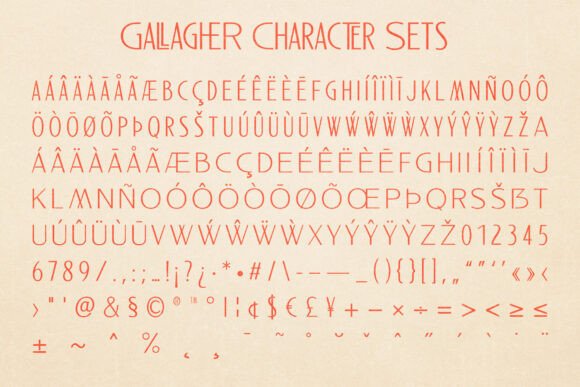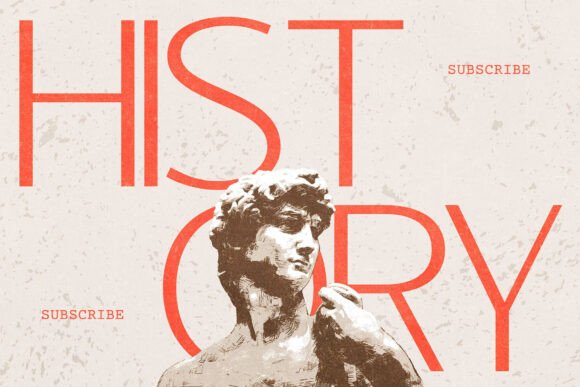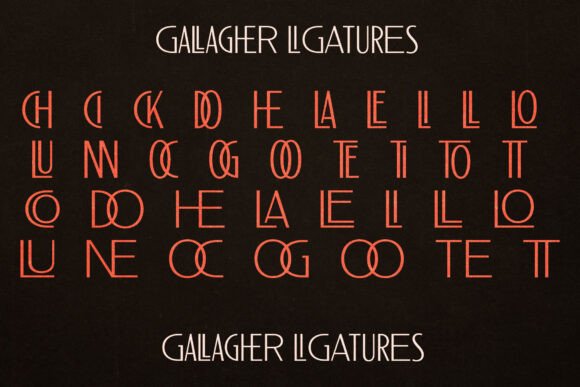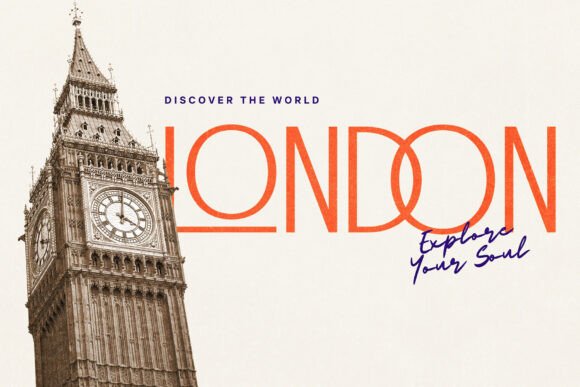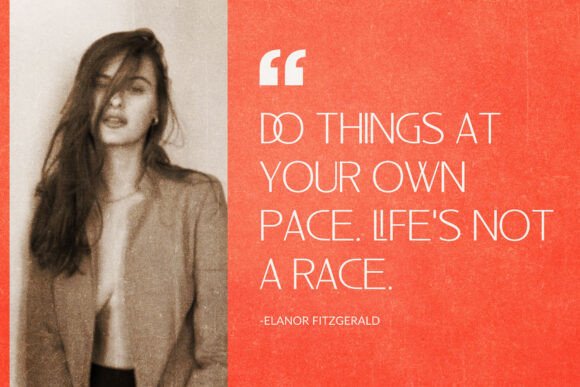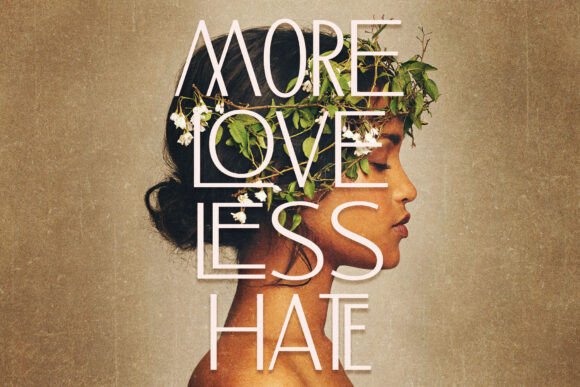
Have you ever stared at a blank canvas, waiting for the perfect font to bring your design to life? For designers, this is a familiar creative moment – the one where the right font can make or break a project. If you’re on the hunt for a modern ligature sans serif font that exudes sophistication and charm, look no further than the Gallagher Font.
This stylish font is designed to add a fashionable touch to any design, whether it’s a beauty layout, elegant crafting project, or branding template. With its delicate curves and classy ligature, the Gallagher Font brings a contemporary feel that’s sure to impress. As a designer, you’ll appreciate the versatility and elegance it offers, making it a valuable addition to your design toolkit.
Gallagher Font Key Features
- Font Size: Gallagher Font is designed to be highly legible at various font sizes, from 10pt to 24pt, making it suitable for both body text and display text.
- Unique Characteristics: Gallagher Font features a unique blend of modern and vintage elements, with a distinctive flair that sets it apart from other sans-serif fonts.
Gallagher Font Review
I recently had the chance to work with the Gallagher Font, and I must say it’s a unique blend of modern and vintage styles. The font has a distinctive feel that’s both elegant and quirky. ✨
- The Gallagher Font’s ability to add a touch of sophistication to any design project is impressive. It’s perfect for creating a sense of luxury and refinement.
- The font’s versatility allows it to work well in a variety of contexts, from print materials to digital interfaces.
- The subtle texture and organic feel of the font add a level of depth and interest that’s hard to find in other fonts.
- The Gallagher Font may not be the best choice for projects that require a clean and minimalist aesthetic. The font’s ornate details can make it feel cluttered and overwhelming.
- The font’s weight can be a bit inconsistent, which may affect the overall balance of a design.
- The Gallagher Font may not be as easily legible in smaller font sizes, which can make it challenging to use in certain contexts.
The Gallagher Font is a solid choice for designers looking to add a touch of elegance and sophistication to their projects. While it may have some limitations, its unique blend of modern and vintage styles makes it a great option for those who want to create something truly memorable.
Tips for Getting the Most Out of Gallagher Font
Use Gallagher font for headings and titles to add a touch of elegance and sophistication to your designs.
Combine Gallagher font with other fonts to create a unique and eye-catching design.
Gallagher font is ideal for:
Formal event invitations and announcements.
High-end branding and marketing materials.
Alternatives to Gallagher Font
The Gallagher Font is a sans-serif typeface known for its clean and modern aesthetic. However, designers may be looking for alternative fonts to suit their specific needs. Here are a few options:
Open Sans is a popular sans-serif font that is highly legible and works well for both body text and headings. It is designed to be highly readable on screens and in print, making it a versatile choice for designers. Compared to Gallagher Font, Open Sans has a slightly more rounded feel and is often used in digital design.
Lato is a sans-serif font that is designed to be highly legible and elegant. It has a clean and modern aesthetic that makes it suitable for a wide range of designs, from corporate branding to digital products. Compared to Gallagher Font, Lato has a more geometric feel and is often used in modern and minimalist designs.